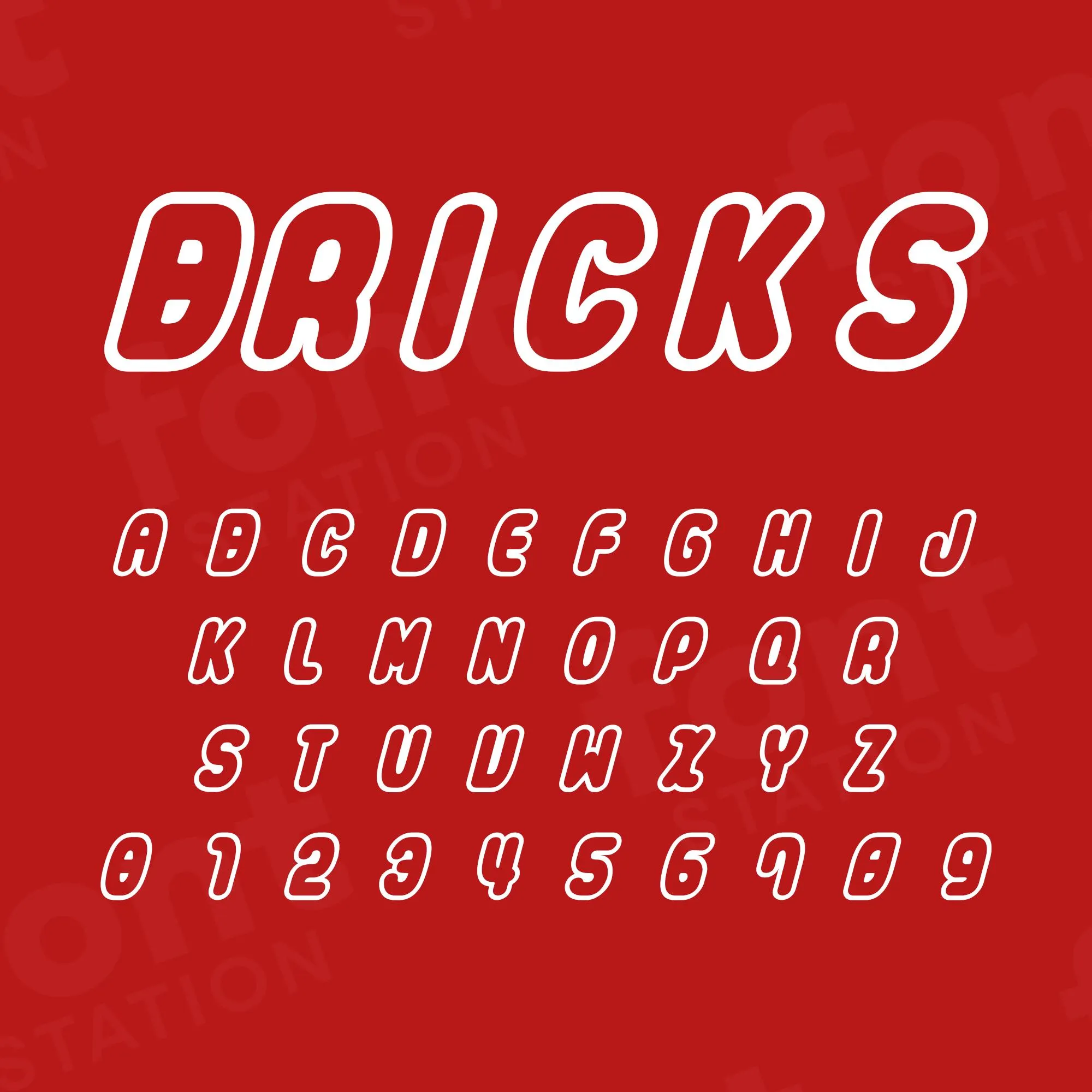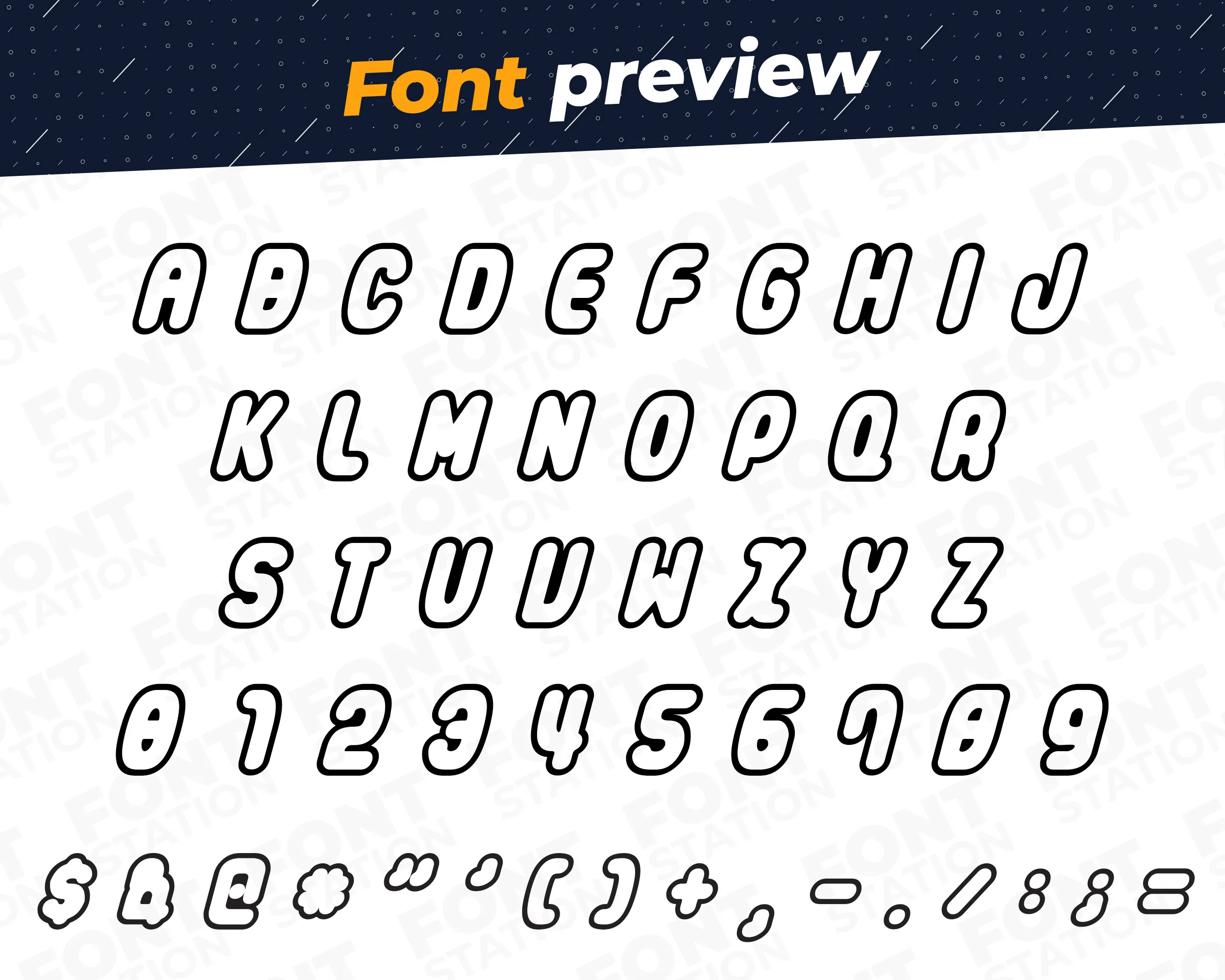
Our Bricks typeface, inspired from Lego font
Grab your computer, tablet or other device and start creating right now with our Lego font letters! Our Bricks typography is inspired from Lego font, making it ideal for various digital creations (logo, word…), sublimation, cake toppers, stickers, event decorations, and more.
Image showing all characters available in the Lego Bricks font created by FontMaze.